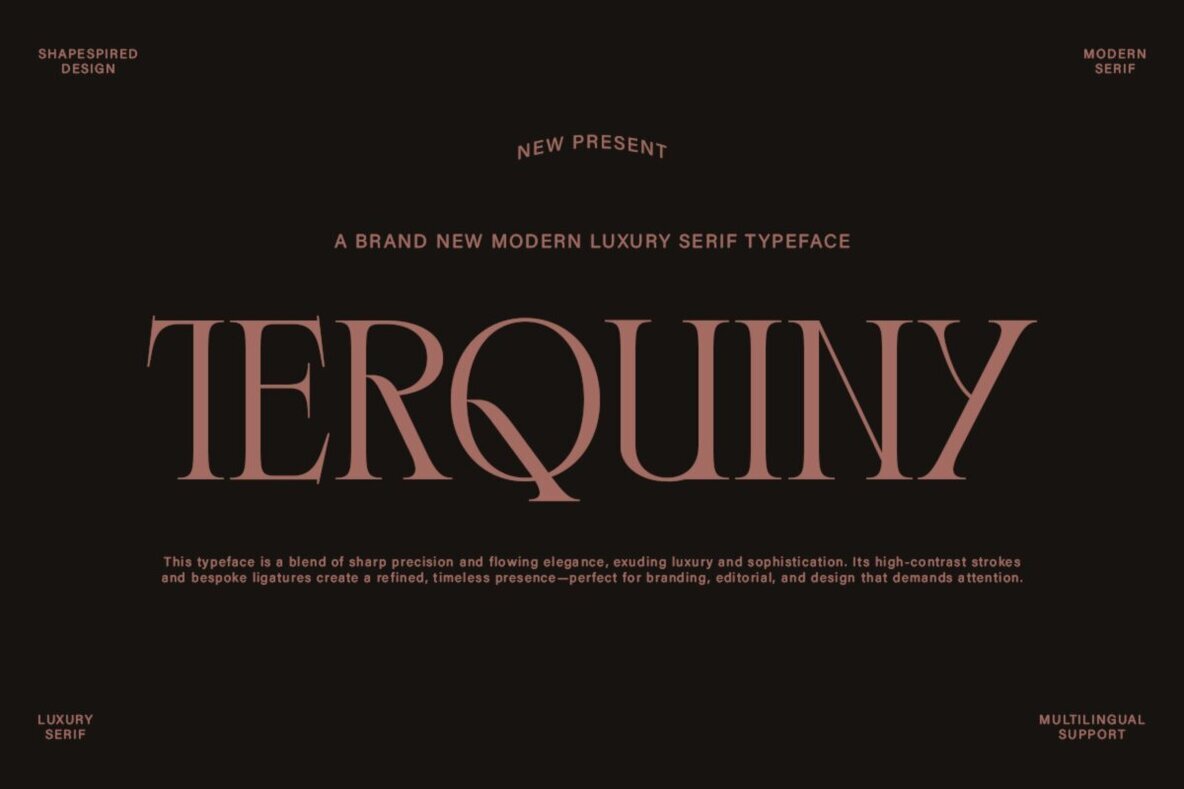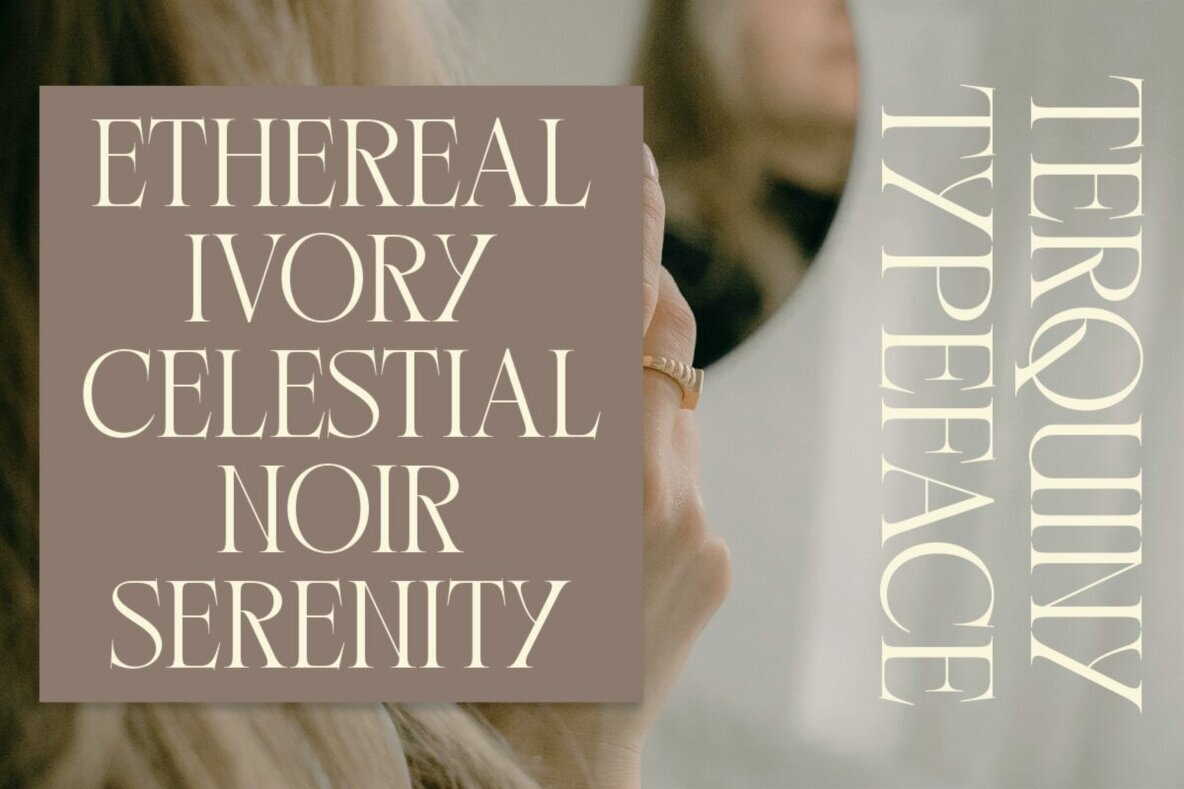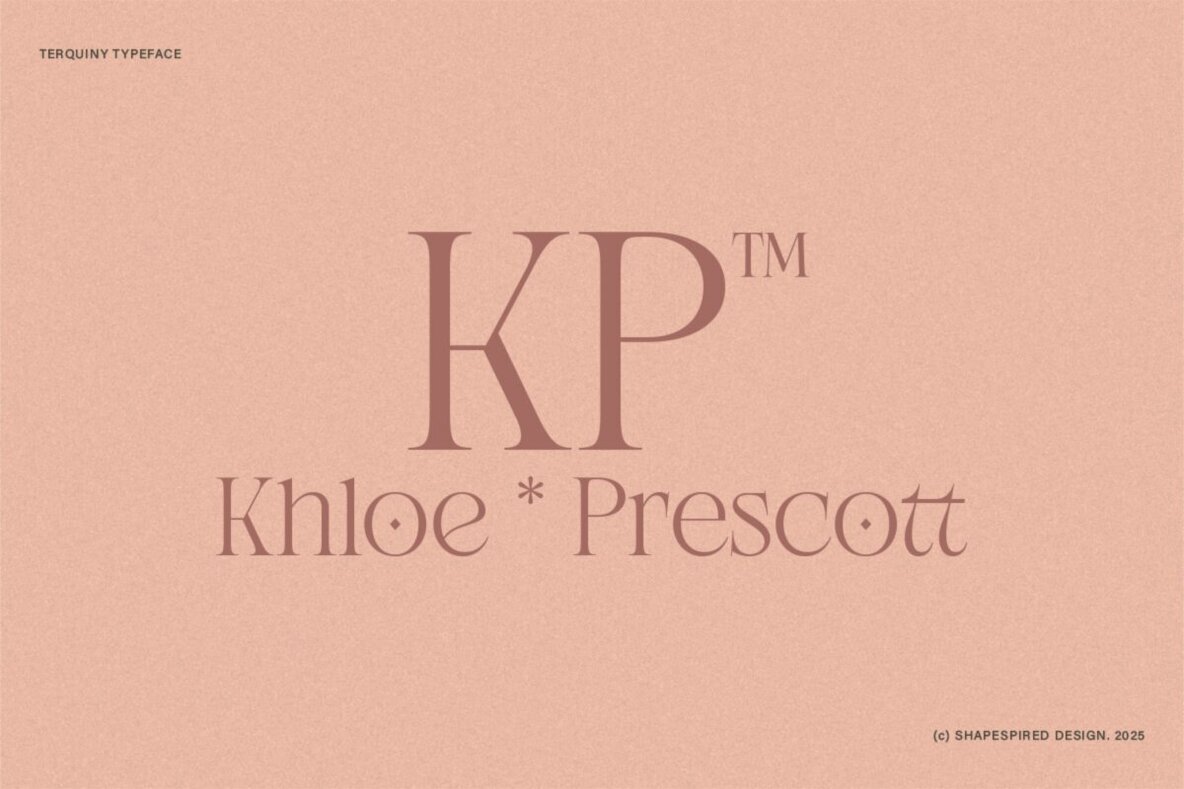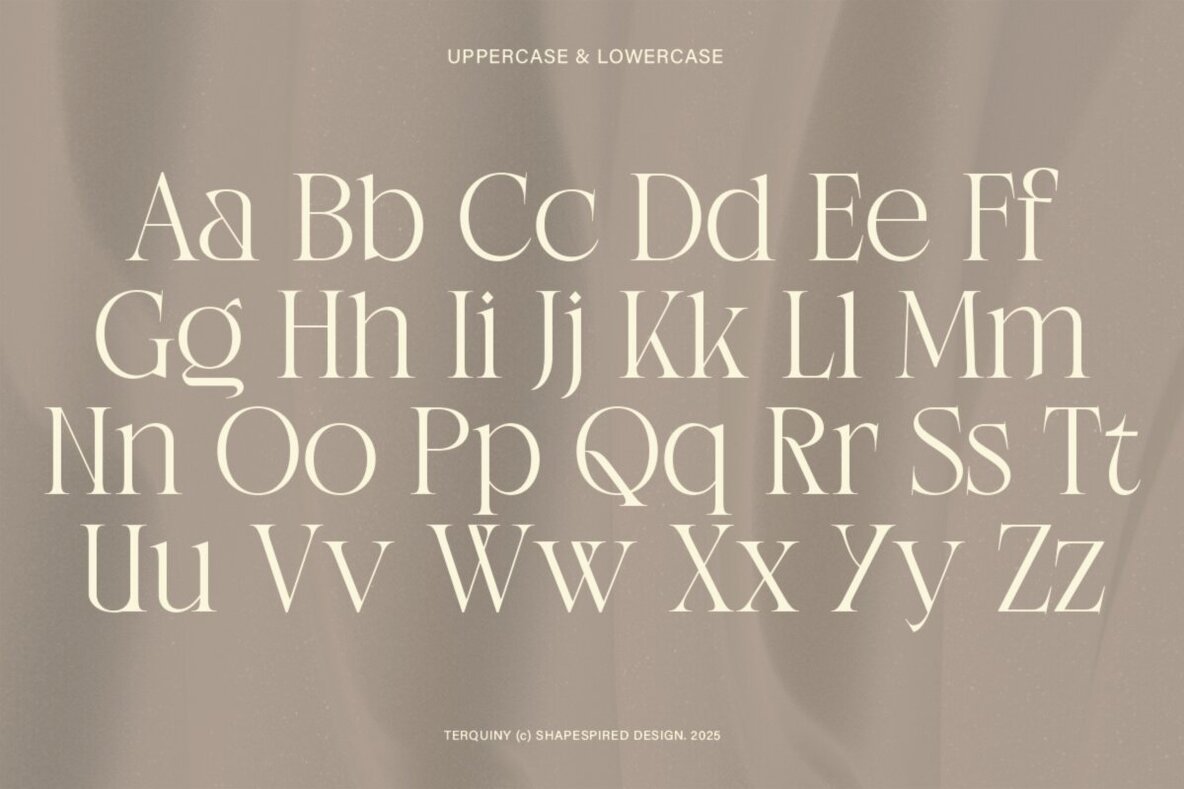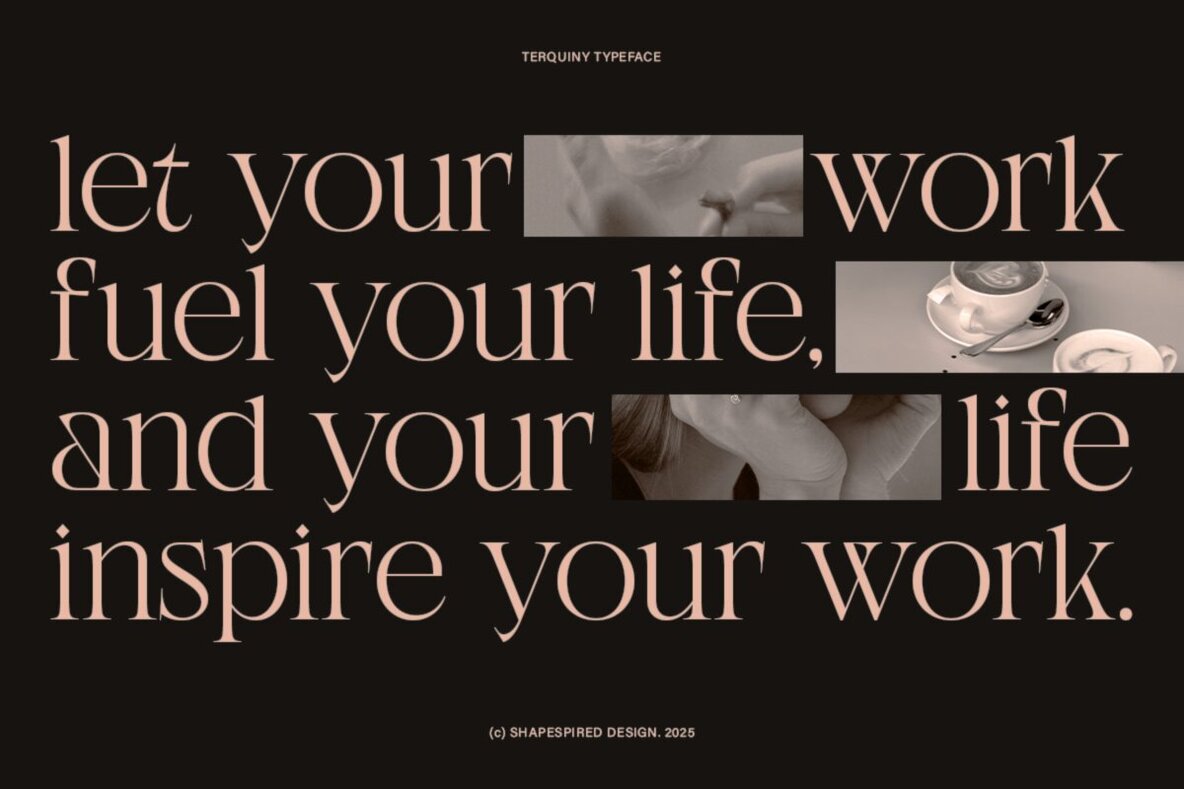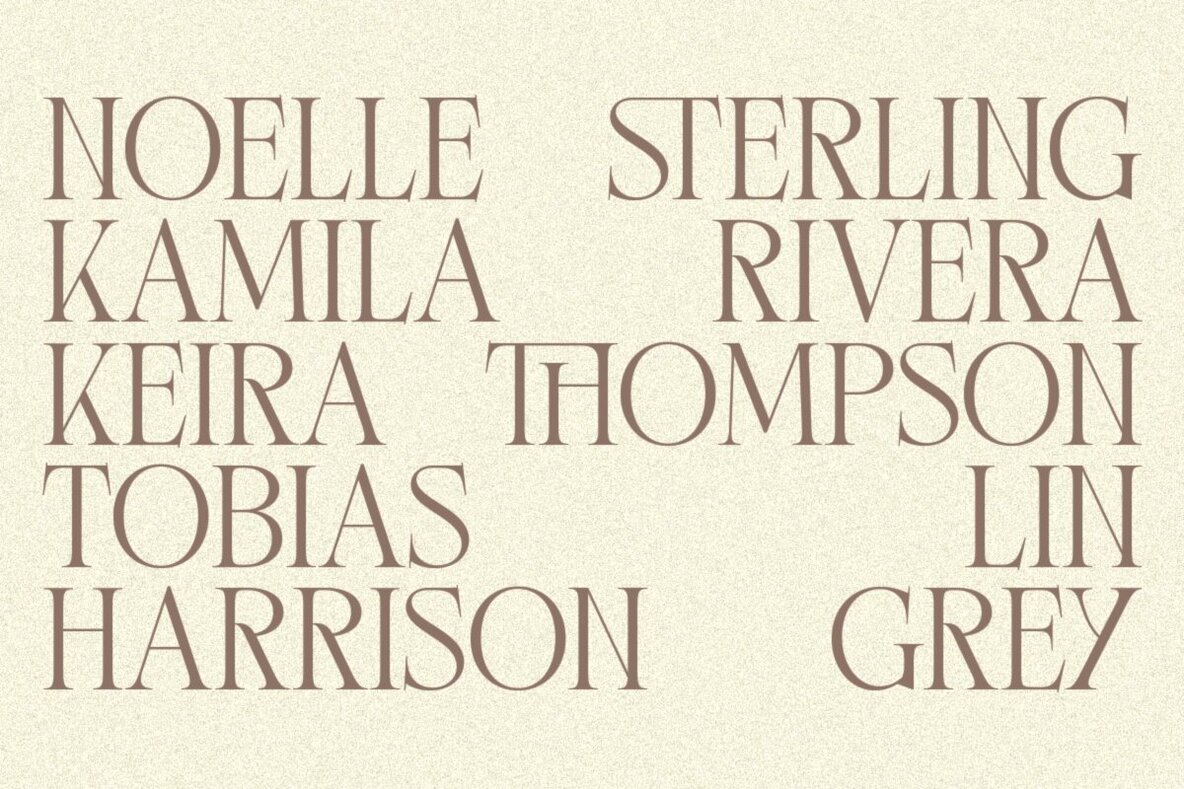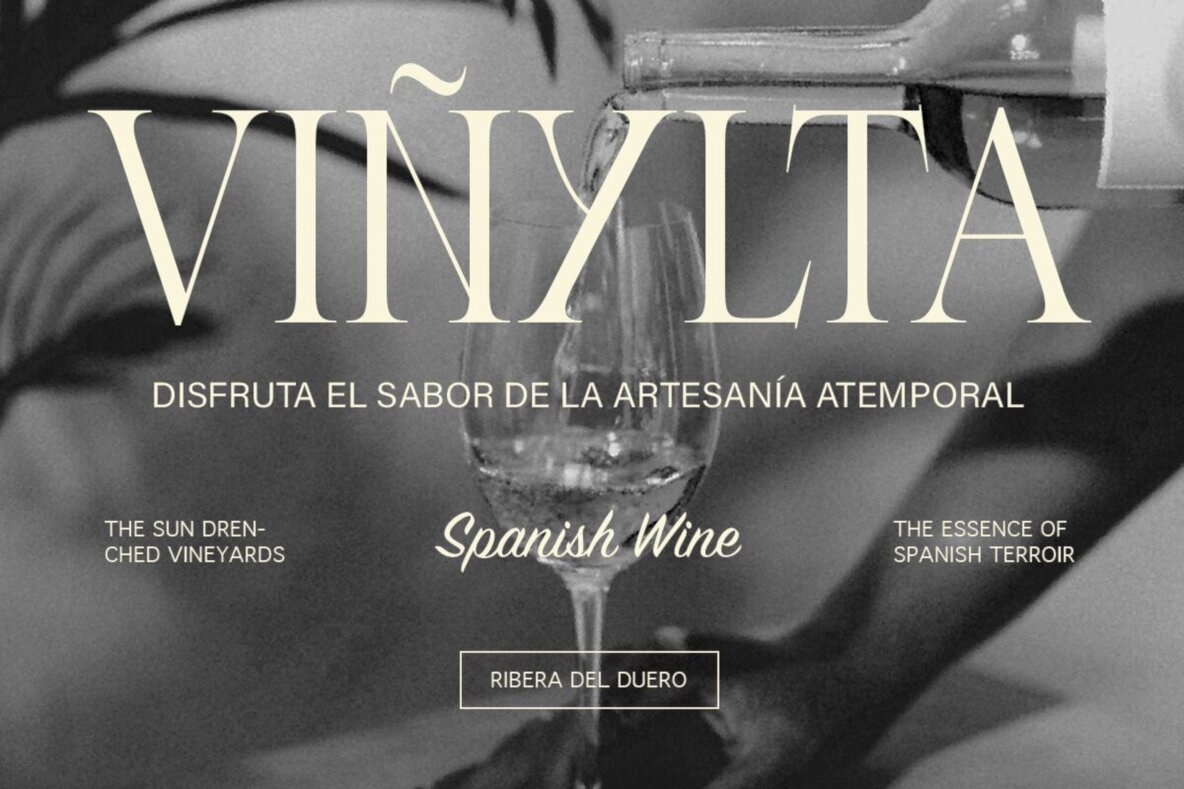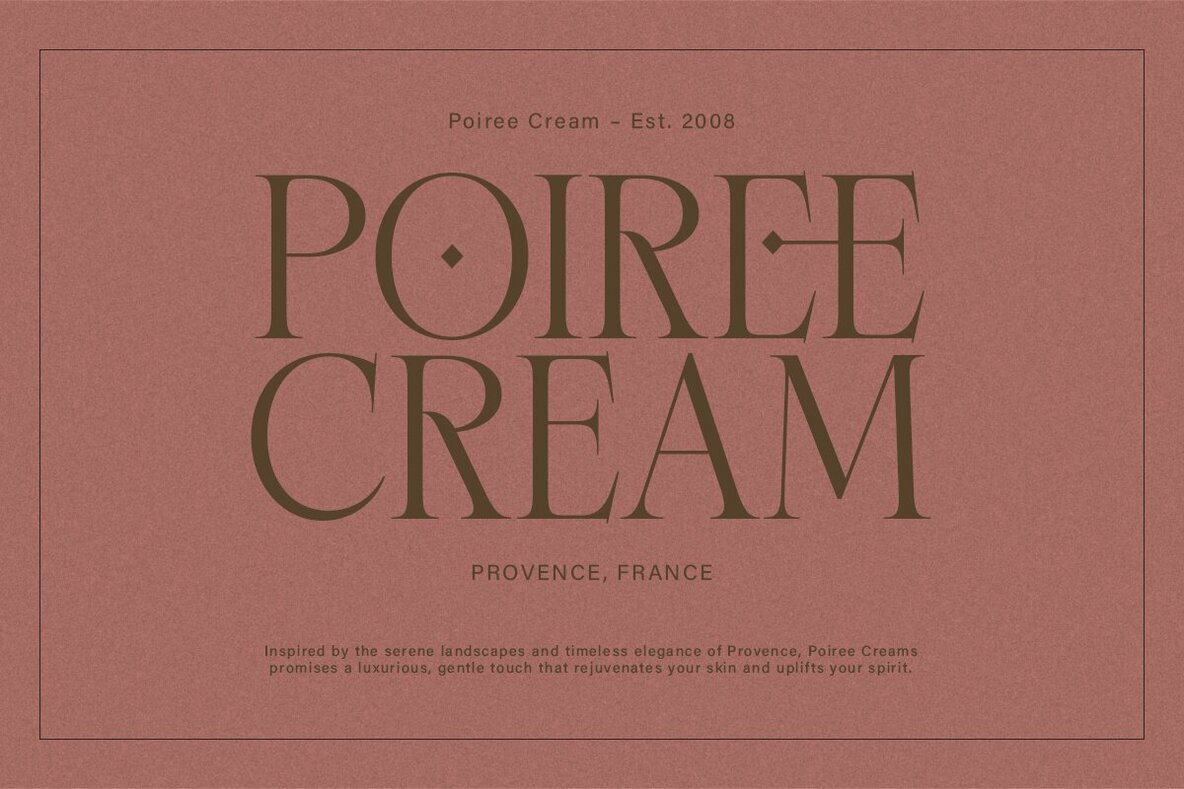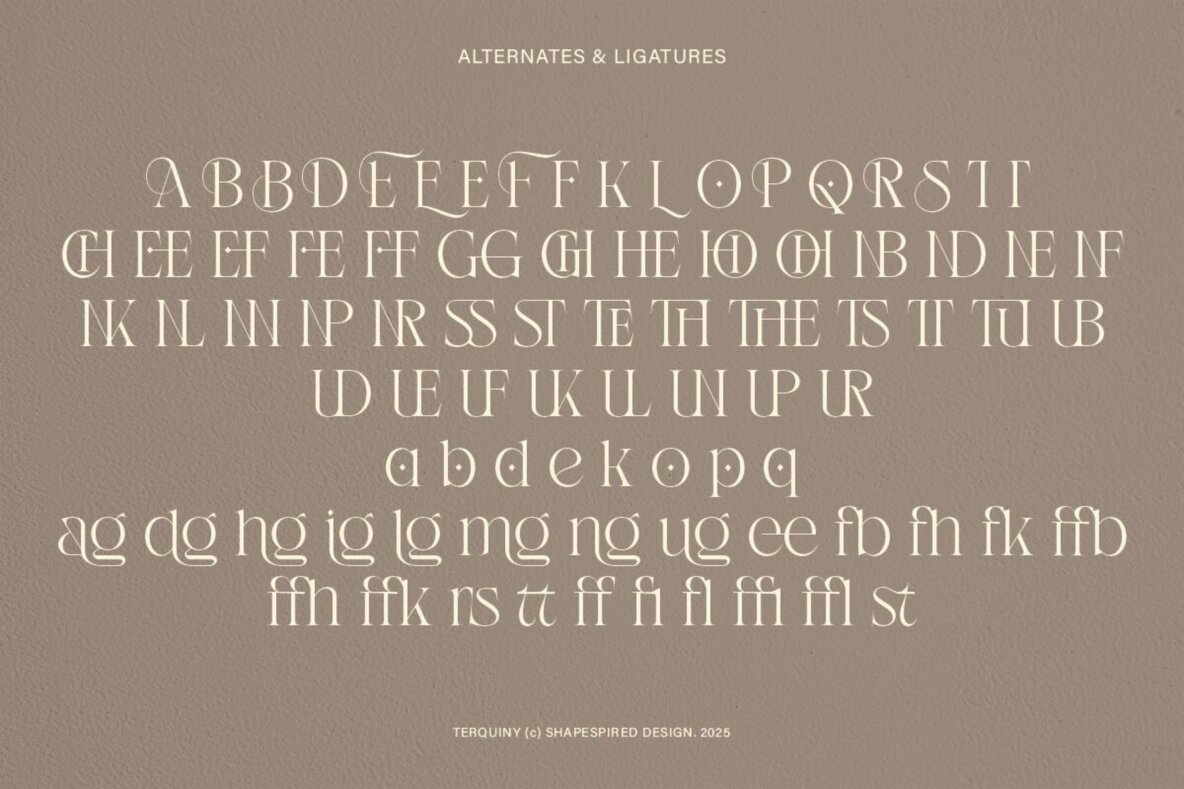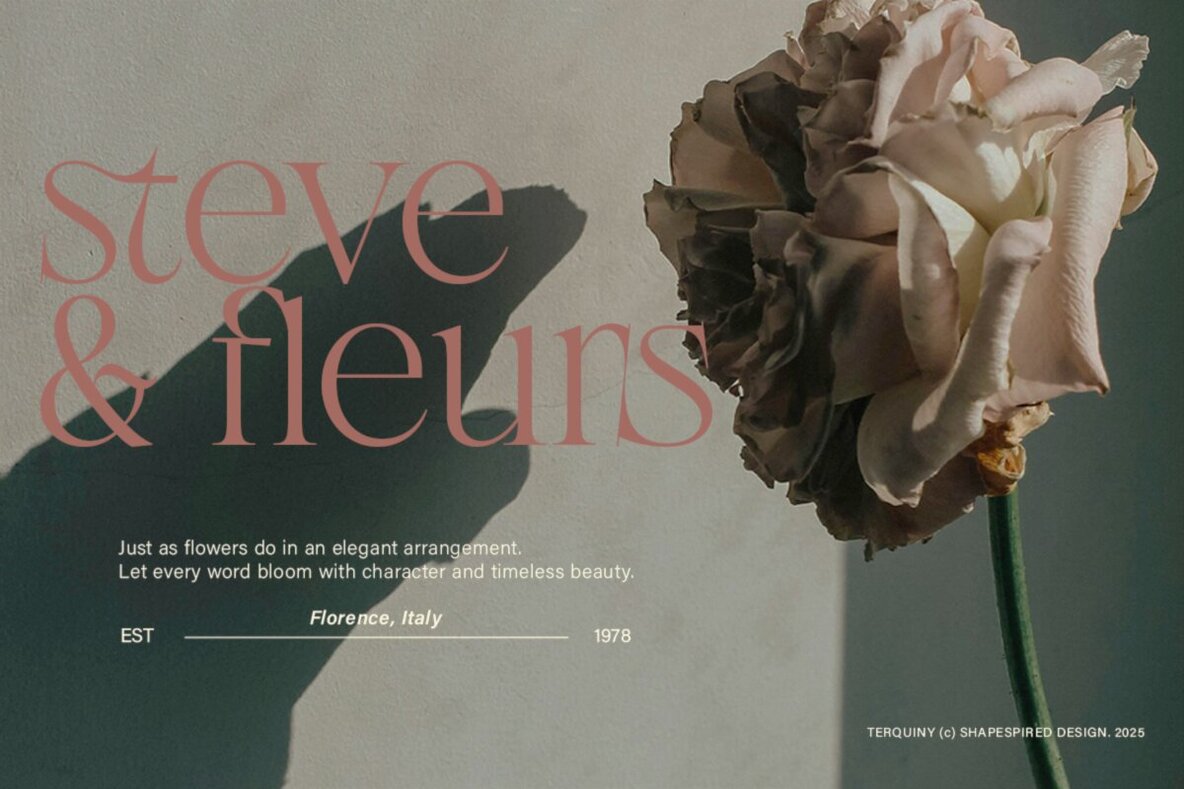
Terquiny Font
Terquiny is a refined luxury serif that balances sharp precision with fluid elegance. Its high-contrast strokes and bespoke ligatures create a sense of sophistication, making it perfect for branding, editorial layouts, and premium design projects. With graceful curves and striking serifs, this typeface embodies timeless beauty and modern refinement, designed to captivate and command attention. Balancing sharp precision with fluid elegance, Terquiny captivates with its high-contrast strokes and graceful letterforms. Designed to command attention, it seamlessly blends modern refinement with classic beauty, making it the perfect choice for designs that demand sophistication and style.